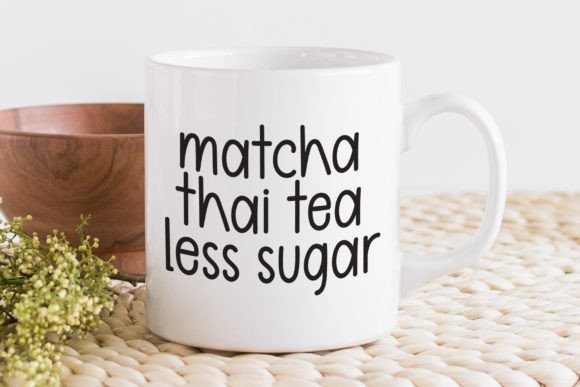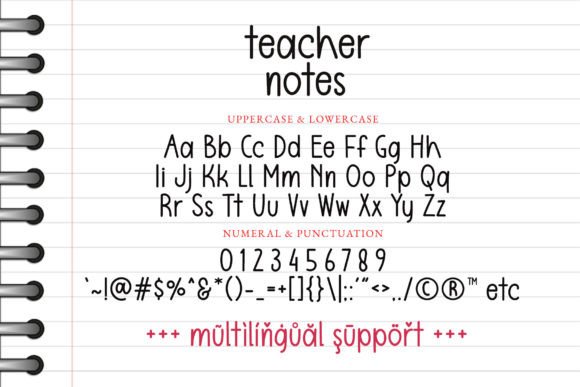
Teacher Notes Font
Teacher notes is simple handwritten font with single line. It is casual, cute, and fun.
This font is perfect for designs that needs cute and playful touch, such as back to school designs, birthday invitations, summer designs, t-shirt designs, crafting, stickers, sublimations, and much more.